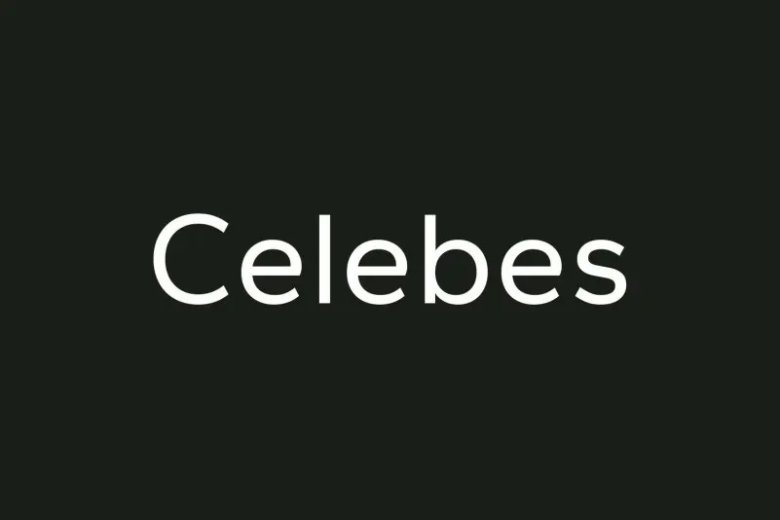
Celebes Font Family
Celebes Font
Celebes is a virile and modern free sans-serif typeface. Additionally, this font has rounded and minimalistic shapes. For example, you may pick up this typeface to try it out on your project to give them a professional rhythm. It is easy to work with this typeface because it is a modern face that you can use in various projects.
Furthermore, this family implies multilingual support. Therefore, you can use it to target a specific global scale audience. You can also use it on websites, branding or on marketing materials with confidence.
Celebes Sans Serif Font Family